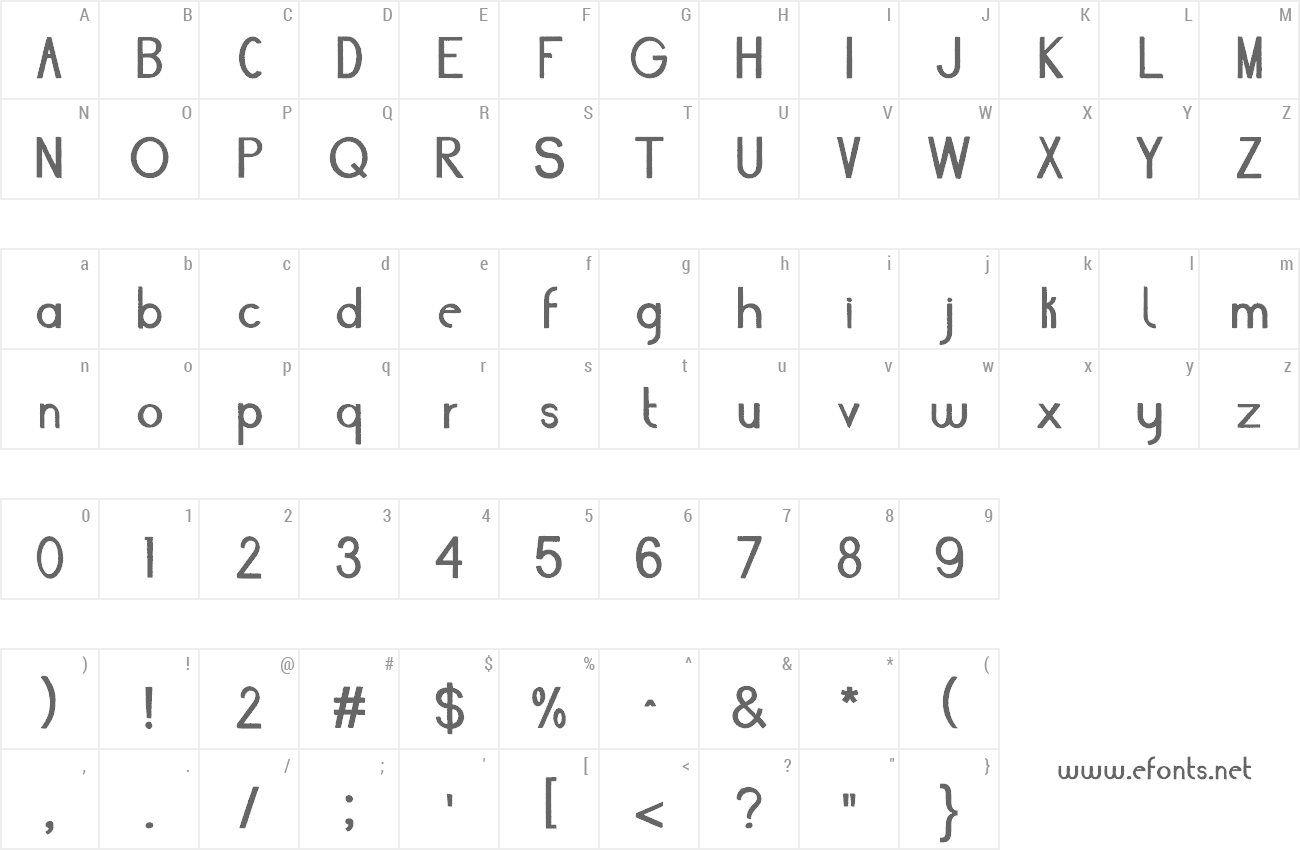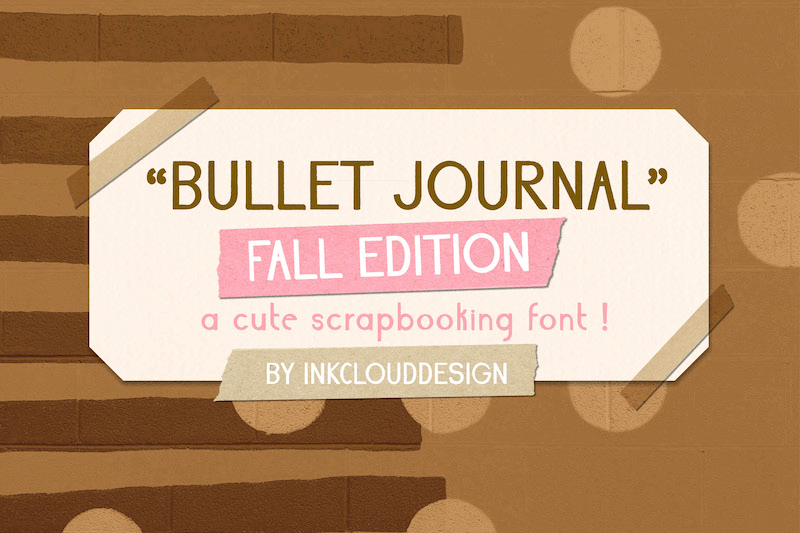
Preview and download Bullet Journal Fall Font. Created by InkCloudDesign in Basic Sans serif styles with Donationware license.
Cute Sans Serif Bullet Journal Font | Modern Scrapbooking "Bullet Journal - Fall" is a cute scrapbooking font ! Get inspired by its unique feel, and add a warm and friendly feel to any design idea. "Bullet Journal- Fall" comes in lowercase and uppercase, numbers, special characters & multilingual characters. You can see all the glyphs displayed in the preview images above. This font comes in the following formats : OTF and TTF This font can be used for personal or commercial use by donating the amount of money you want. You can purchase a corporate license here : https://fontbundles.net/inkclouddesign/792885-fall-script-bullet-journal-font-autumn-planner-scr/rel=ROwFkN For example, you can use this font for: � typography designs � text on illustrations � print text on various objects such as cards, mugs, t-shirts, notebooks, wallpaper, wedding invitations, birthday cards, etc & more ! Be creative and have fun ! 🙂 If you wish to get the Regular version of Bullet Journal, you can get it here: https://fontbundles.net/inkclouddesign/789971-cute-sans-serif-bullet-journal-font-modern-scrapbo/rel=ROwFkN If you have questions or requests, feel free to send me a message. Find me at @InkCloudDesign |